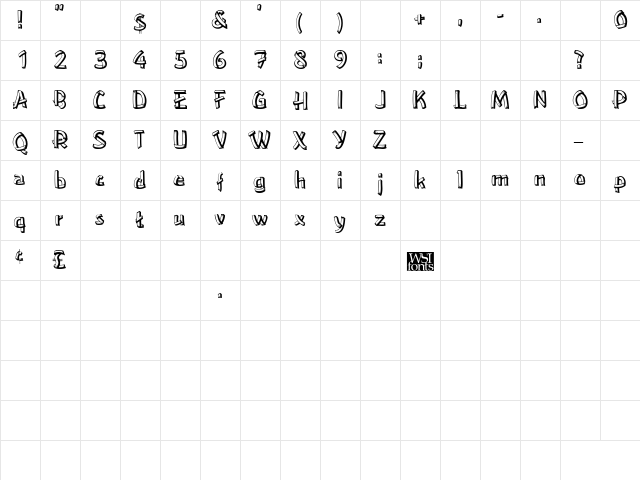
ClampettsDisplay Regular
Design Context for ClampettsDisplay Typeface
ClampettsDisplay brings ornamental detail and strong personality to headlines and identities, where visual impact matters more than quiet functionality.
Font Pairing: Pair with a clean neutral sans-serif for body copy to let ClampettsDisplay's character lead without overwhelming the composition.
Pro Tip: Treat ClampettsDisplay as the centrepiece of your typographic hierarchy. One strong heading set in a decorative face can carry an entire layout.